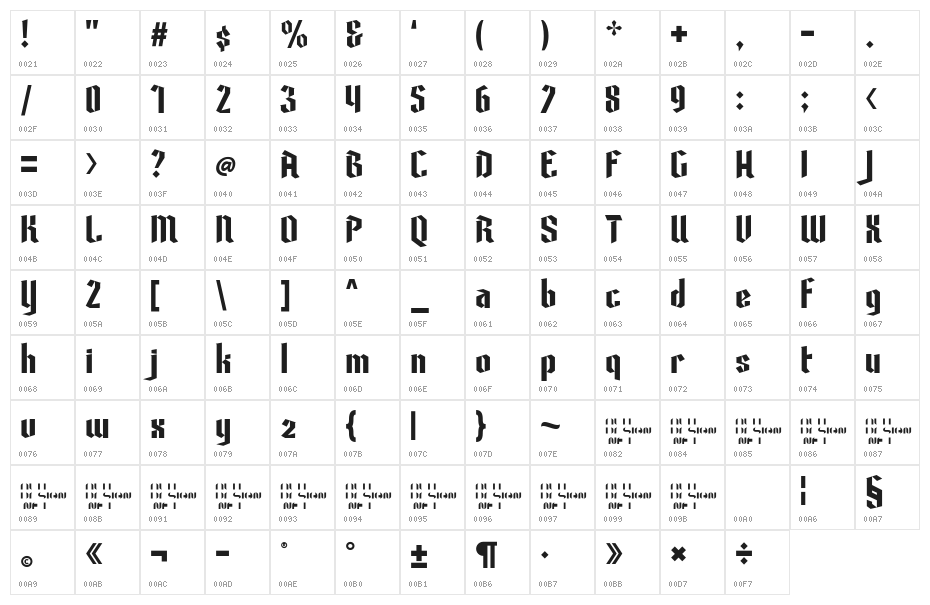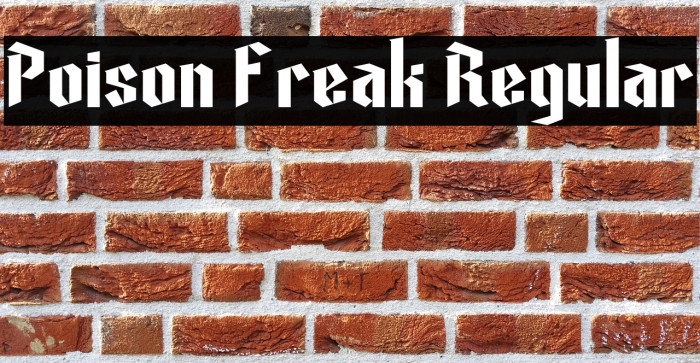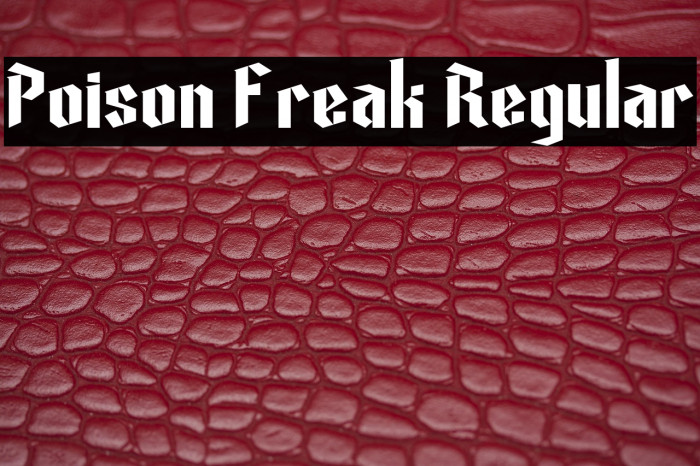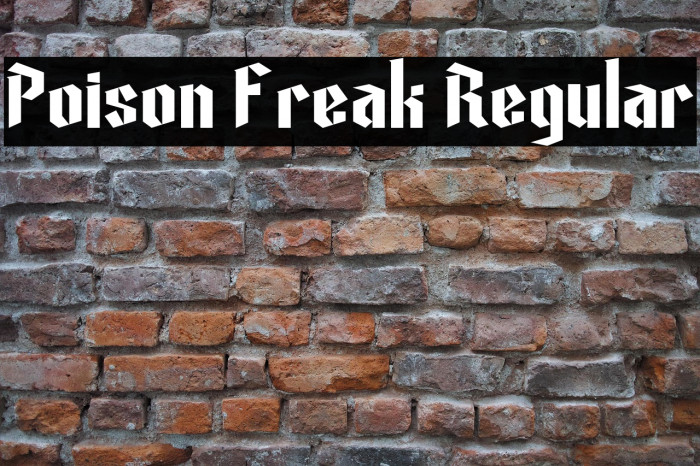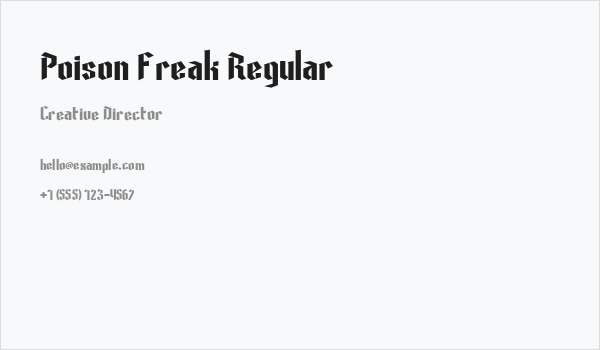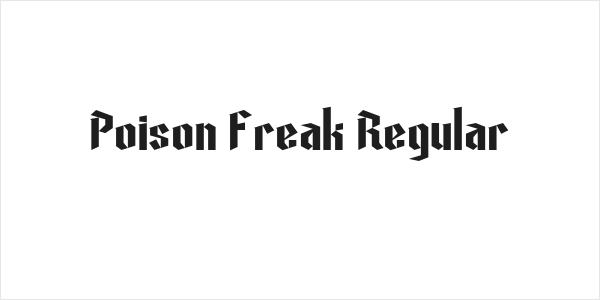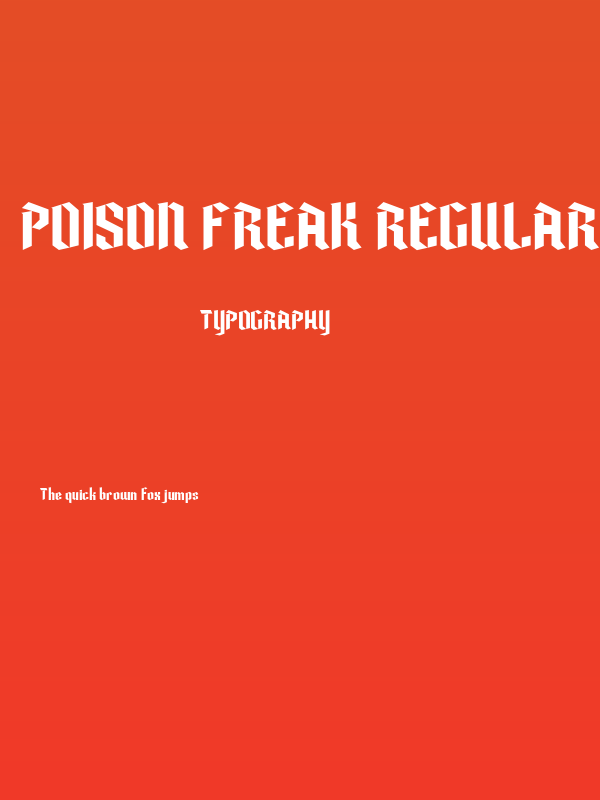
Poison Freak Regular Font
Poison Freak Regular Description
This font features a bold, angular design reminiscent of gothic or blackletter styles. The characters are sharply defined with thick strokes and pointed edges, creating a dramatic and intense appearance. The uppercase and lowercase letters maintain a consistent style, with a strong emphasis on vertical lines and sharp angles. The numbers and special characters follow the same aesthetic, ensuring uniformity across all glyphs. This font's unique style makes it stand out, offering a striking visual impact.
| Proposed Projects | Ideal for projects requiring a dramatic and intense look, such as posters, album covers, or branding for edgy or alternative products. |